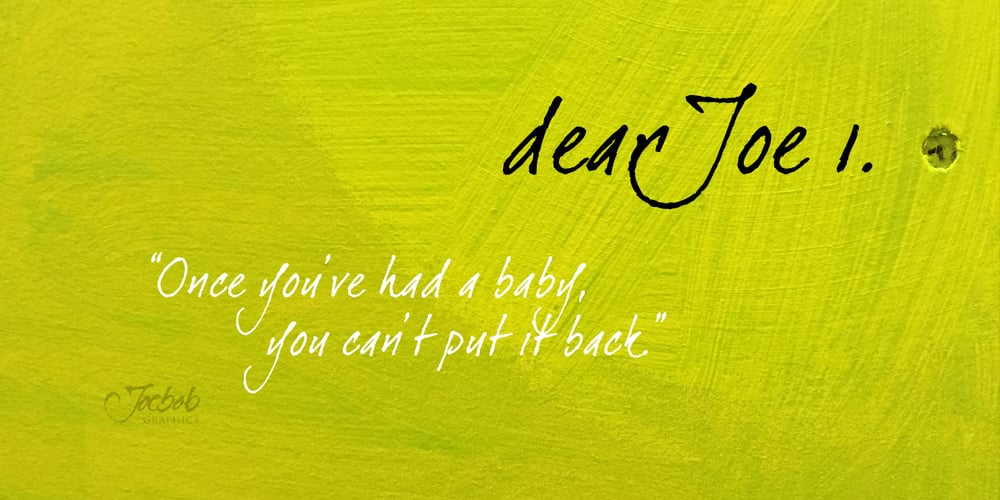
DearJoe 1
DearJoe 1 font
DearJoe 1 Font Family was designed by Jeroen “Joebob” van der Ham and published by JOEBOB graphics. DearJoe 1 contains 1 styles and family package options. DearJoe 1 is the first of four handwritten scripts by JOEBOB graphics. It is not the same as the free font. It includes a complete character set with numbers and most (but not all) special signs.